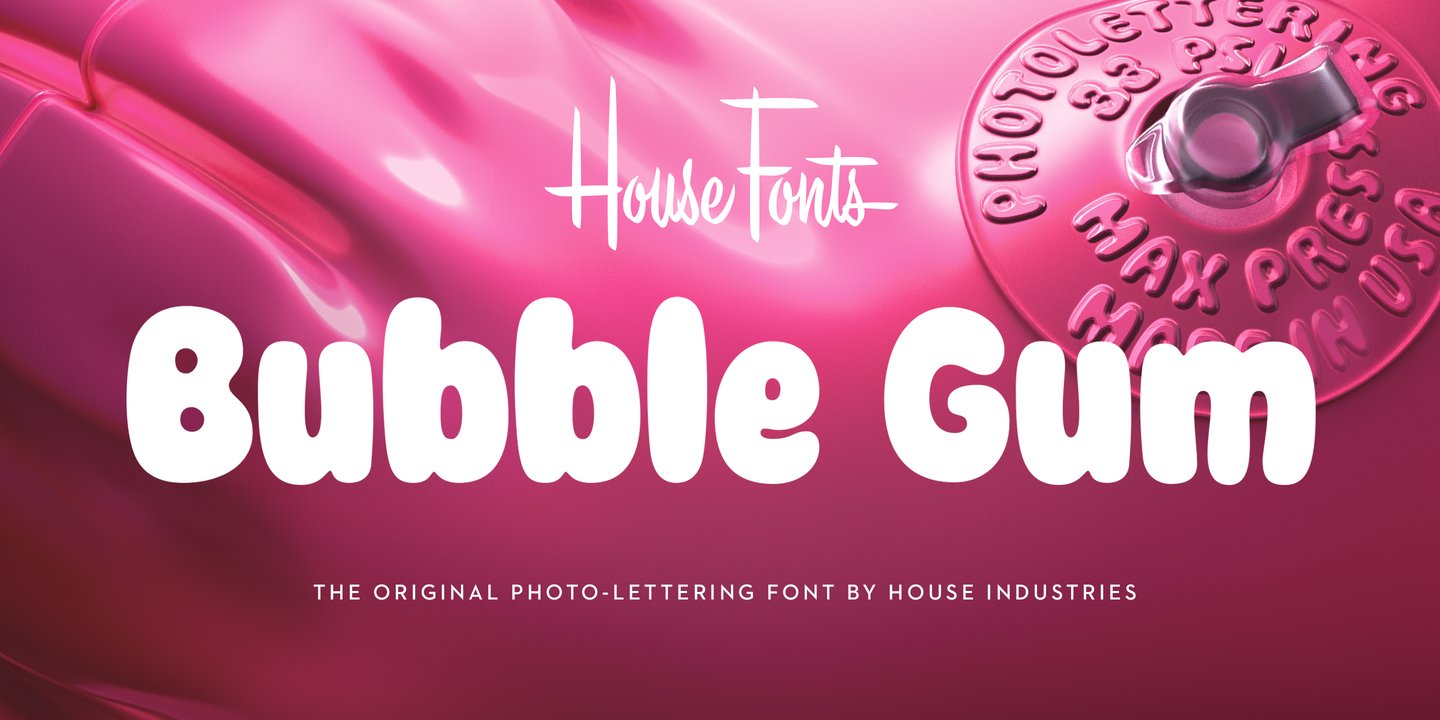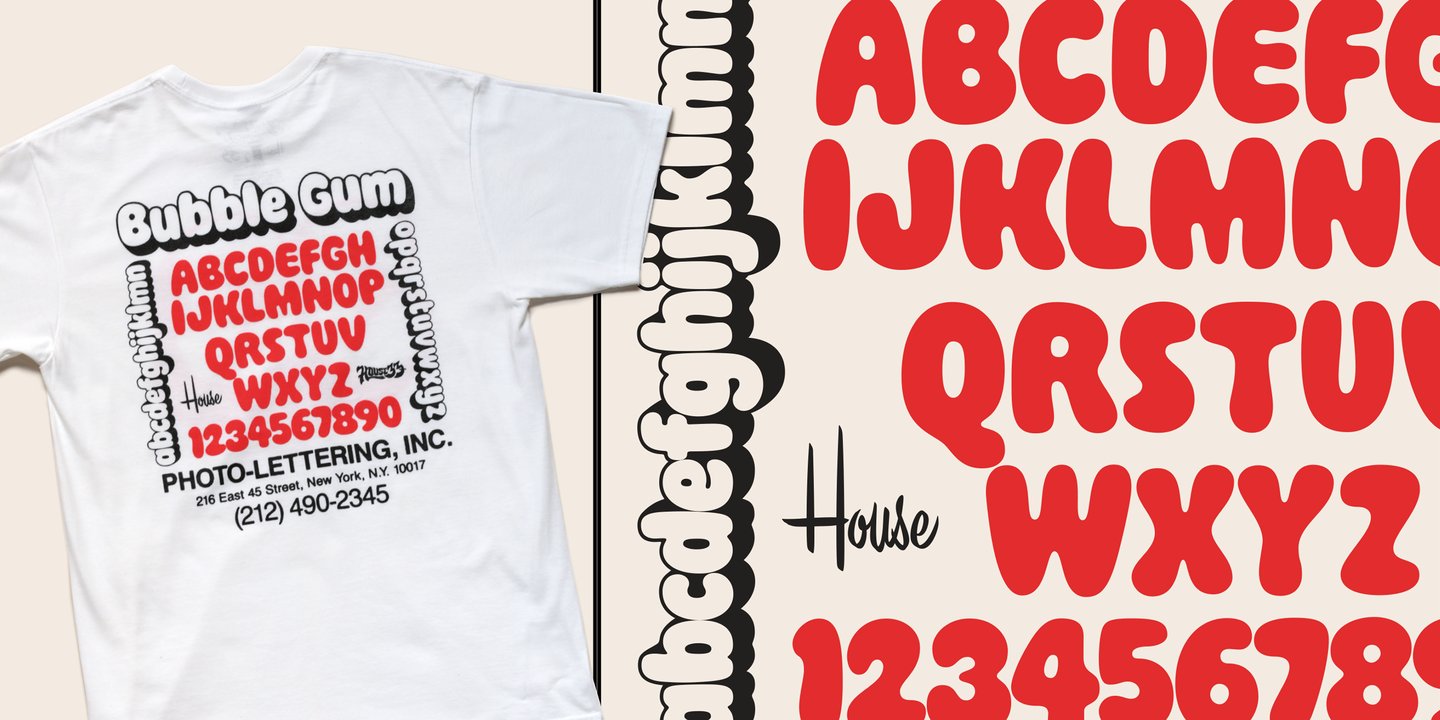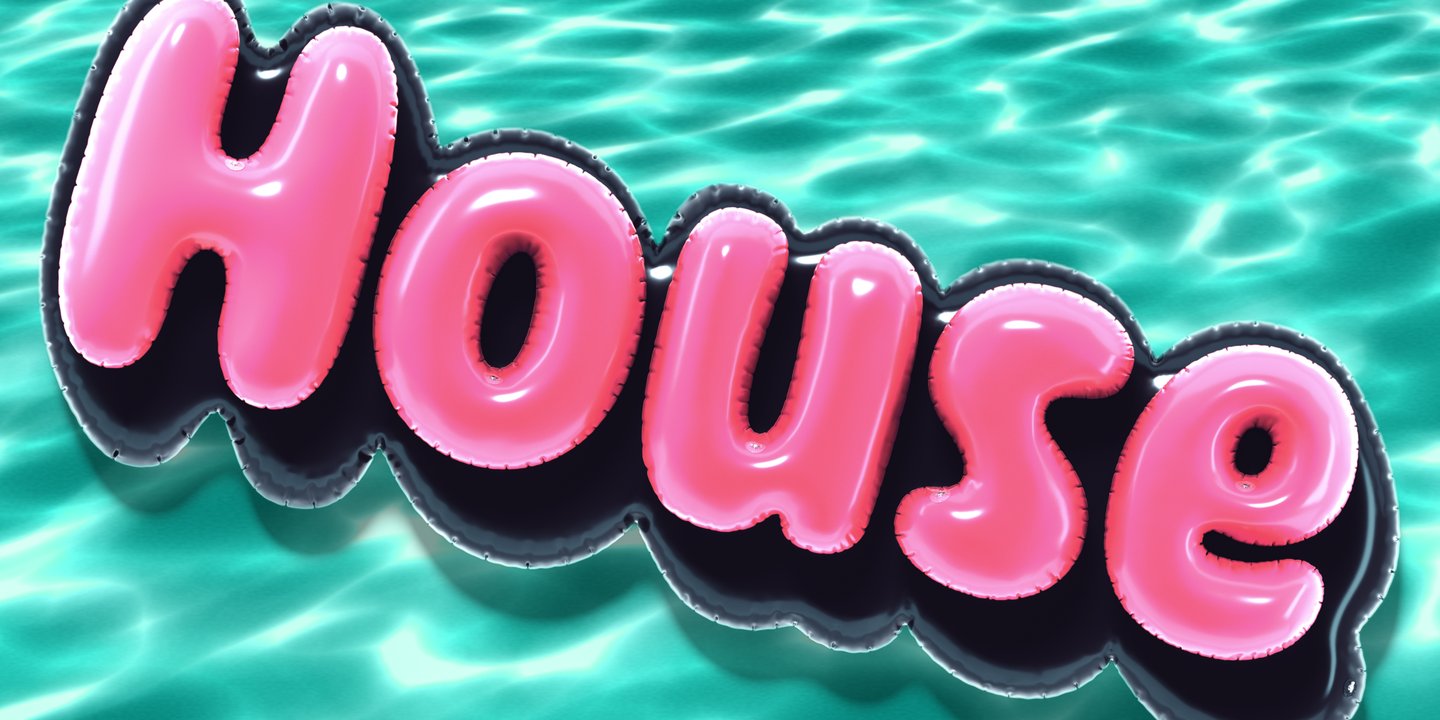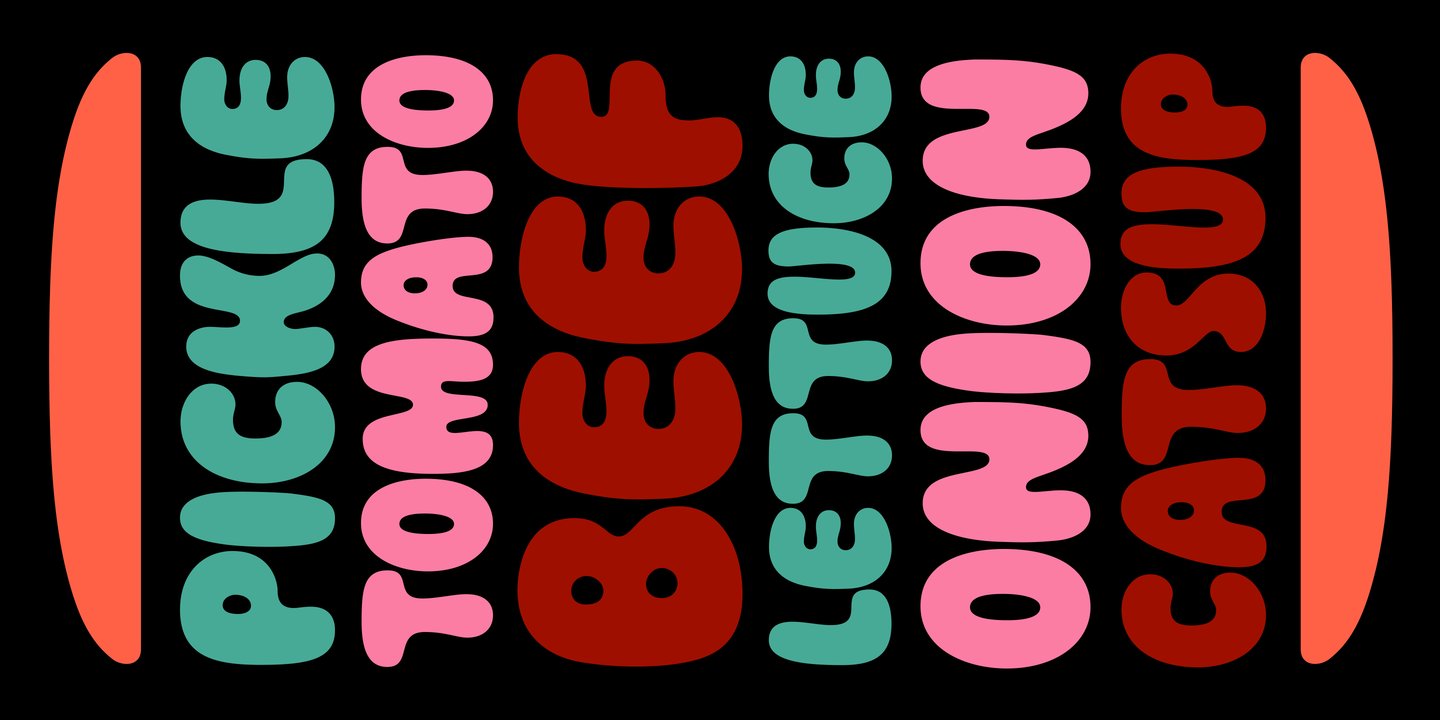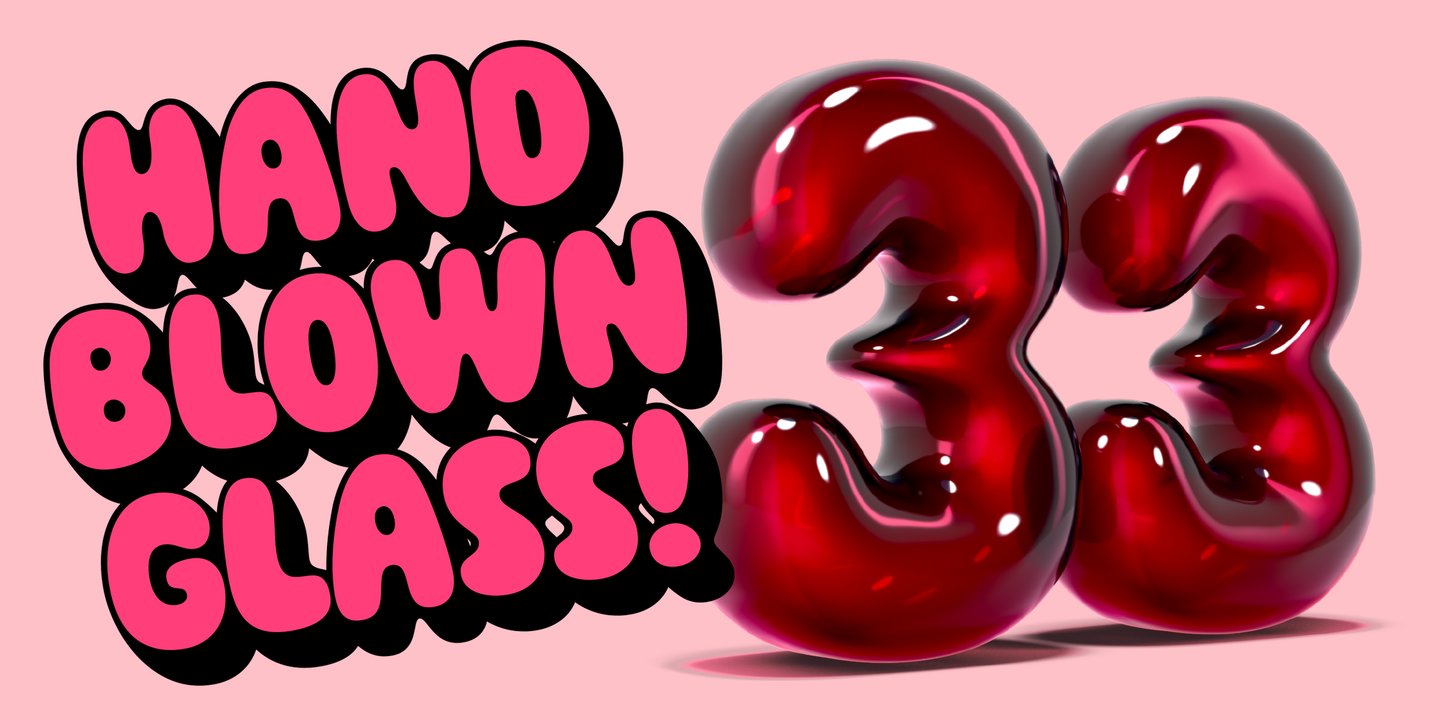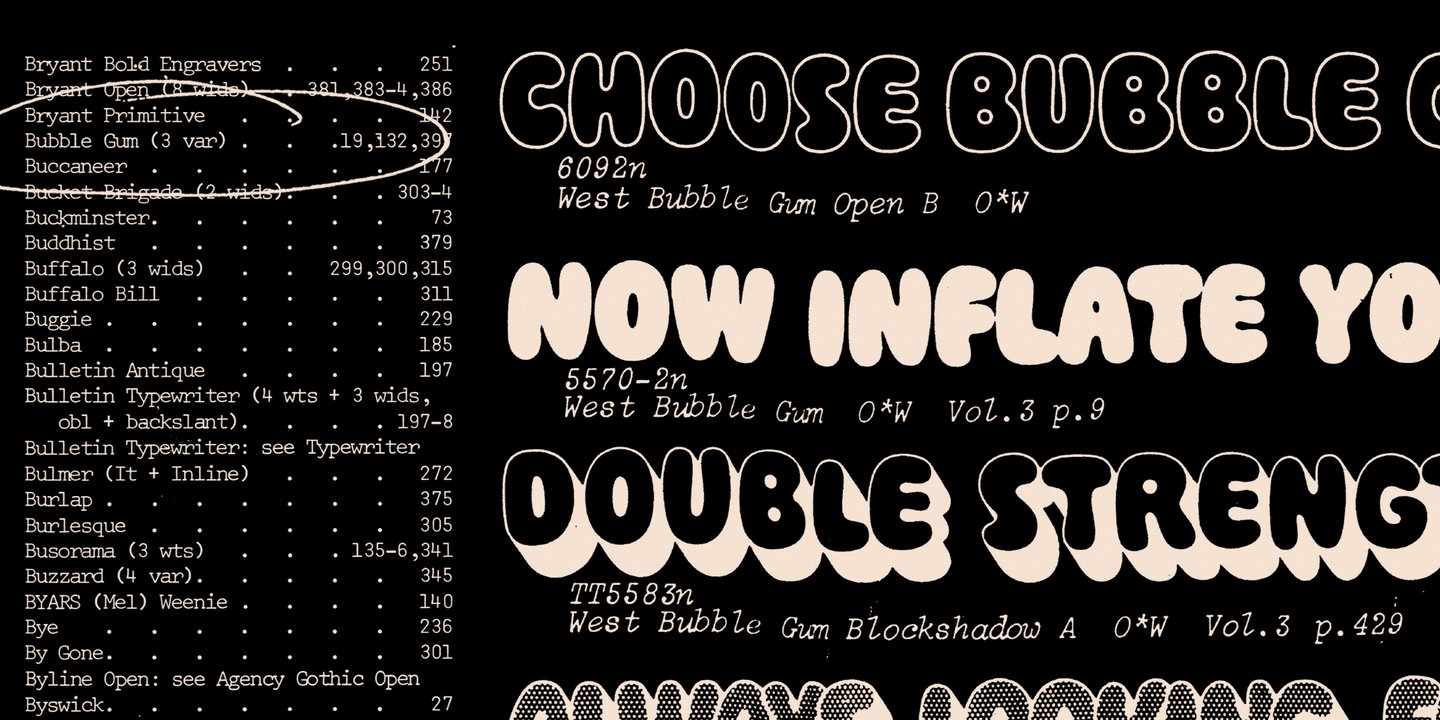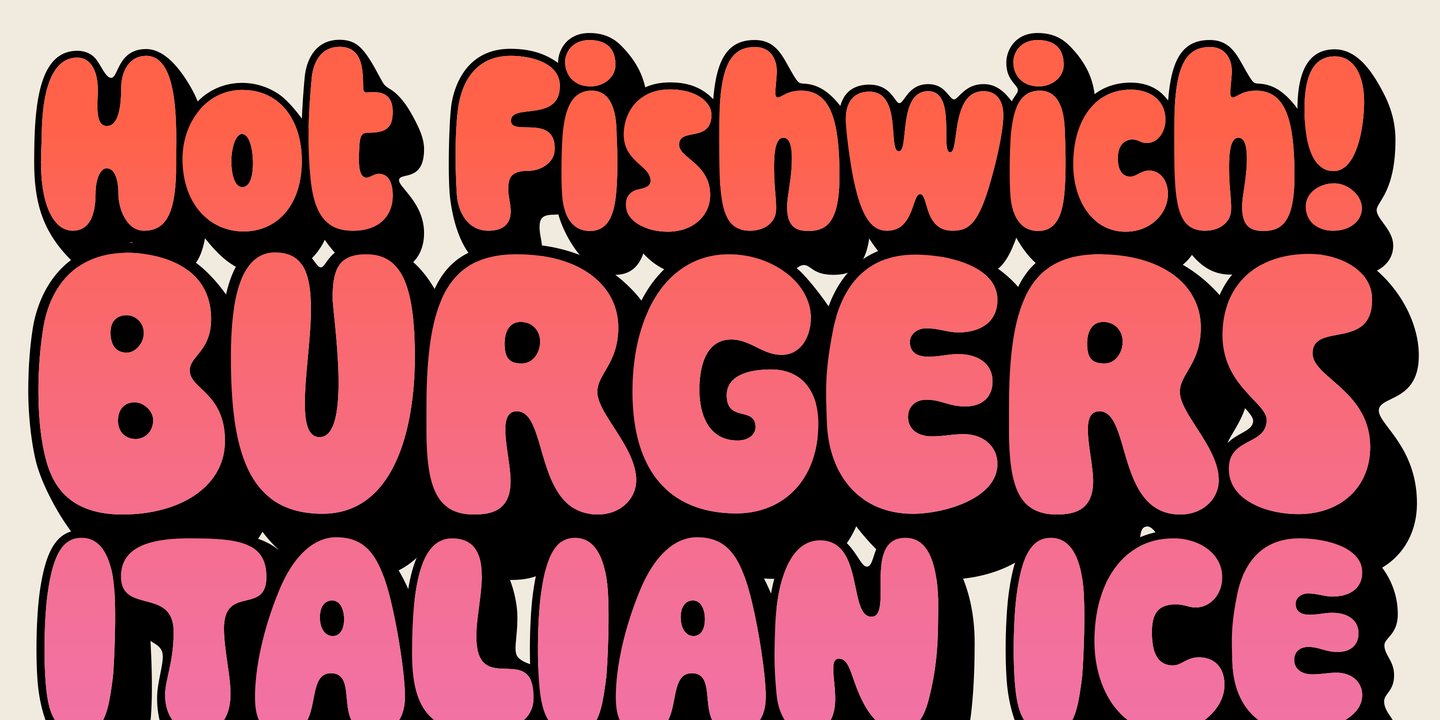
About the Plinc Bubble Gum Font
About Plinc Bubble Gum Font Family Bubble Gum is a juicy multi-dimensional gob of goodness that’s bursting at the seams with loads of alphabetic appeal. Its well-padded figure transforms the ample letterforms found in classic comic strip word balloons into a warm and casual display font with a little extra kick. Cooked up by Dave West for Photo-Lettering, Inc. between the late 1960s and early 70s, Bubble Gum was finally digitized by Jess Collins in 2011.
Plinc Bubble Gum Font